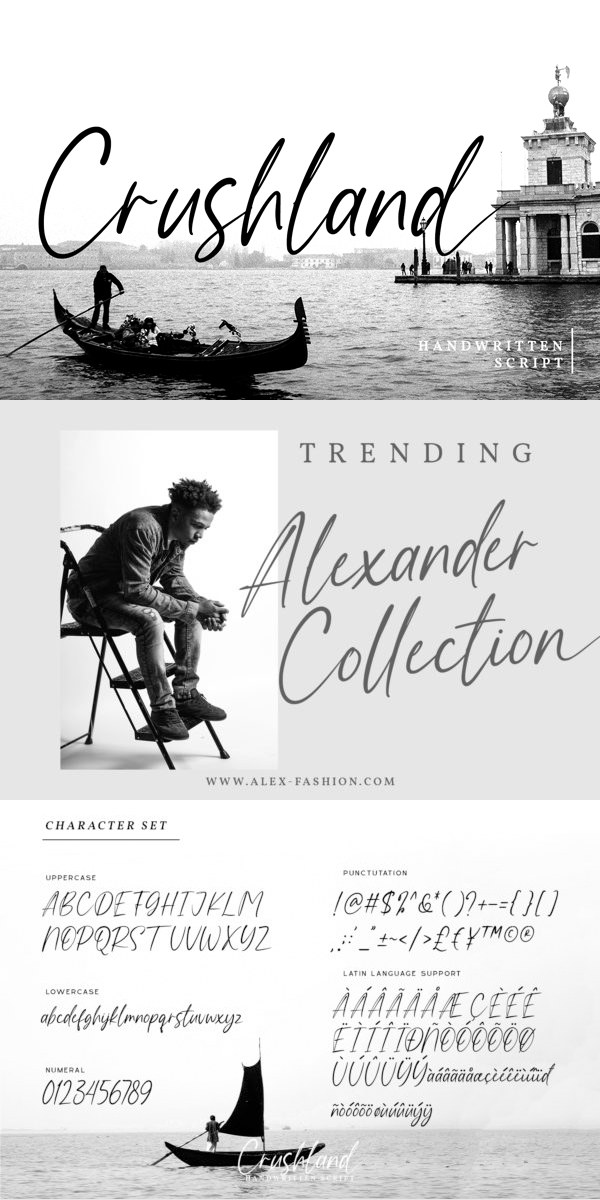
Crushland Font
About Crushland
Crushland is a beautiful handwritten font. With a natural handwritten style, it brings a classy and beautiful typeface. Crushland is best used for branding, logotype, and quotes.
– Stylistics Set
– Beautiful Ligatures